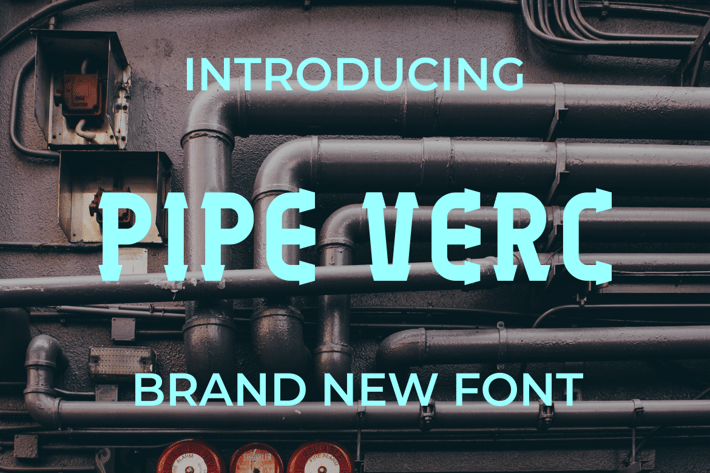
Pipe Verc Font
Introducing our new product Pipe Verc Font - Modern Font
Pipe Verc Font - Modern Font is a bold and authentic display font. The font is suitable for any branding project like logo, t-shirt printing, esport, and many more. outstanding in a wide range of contexts.